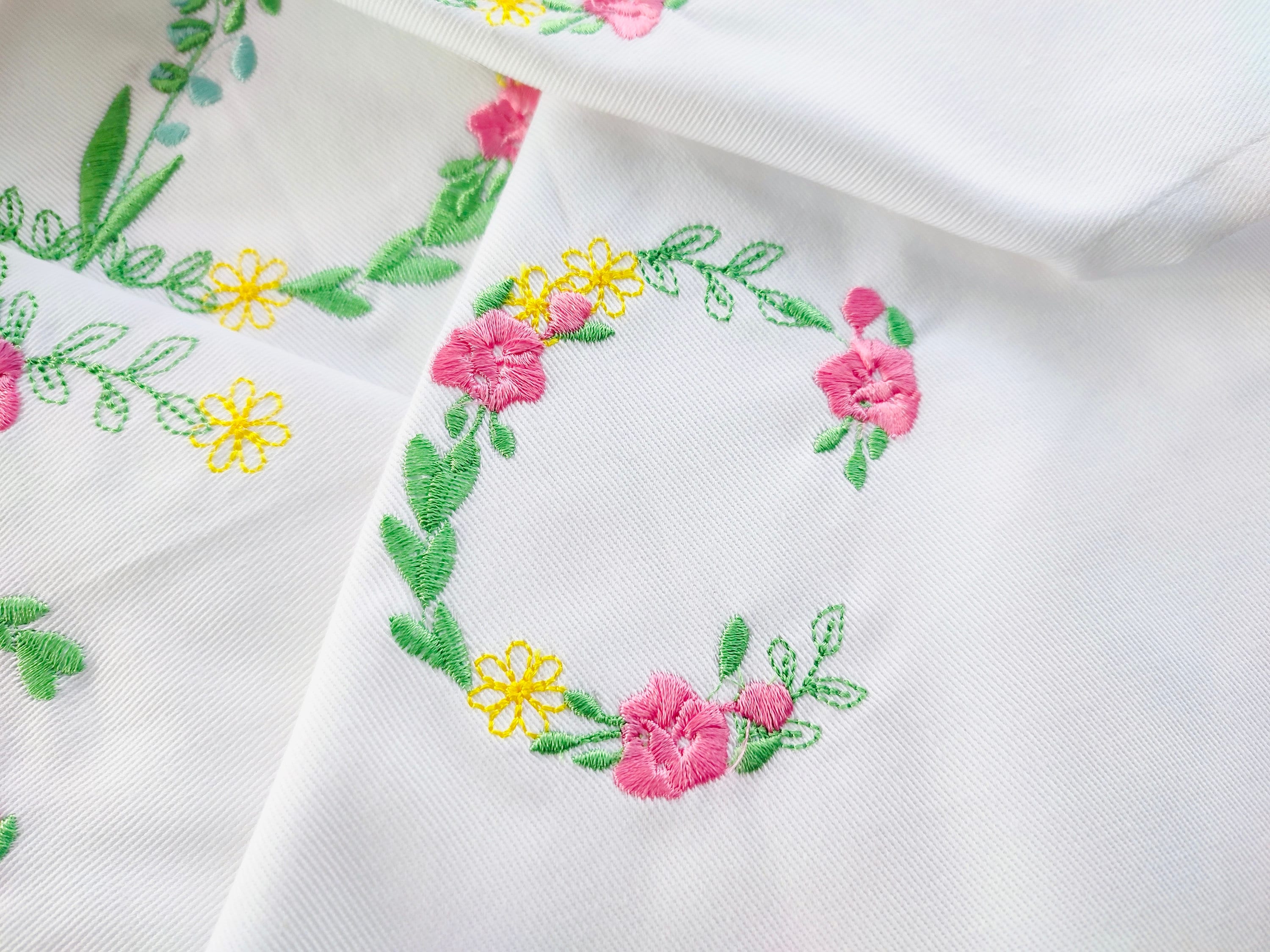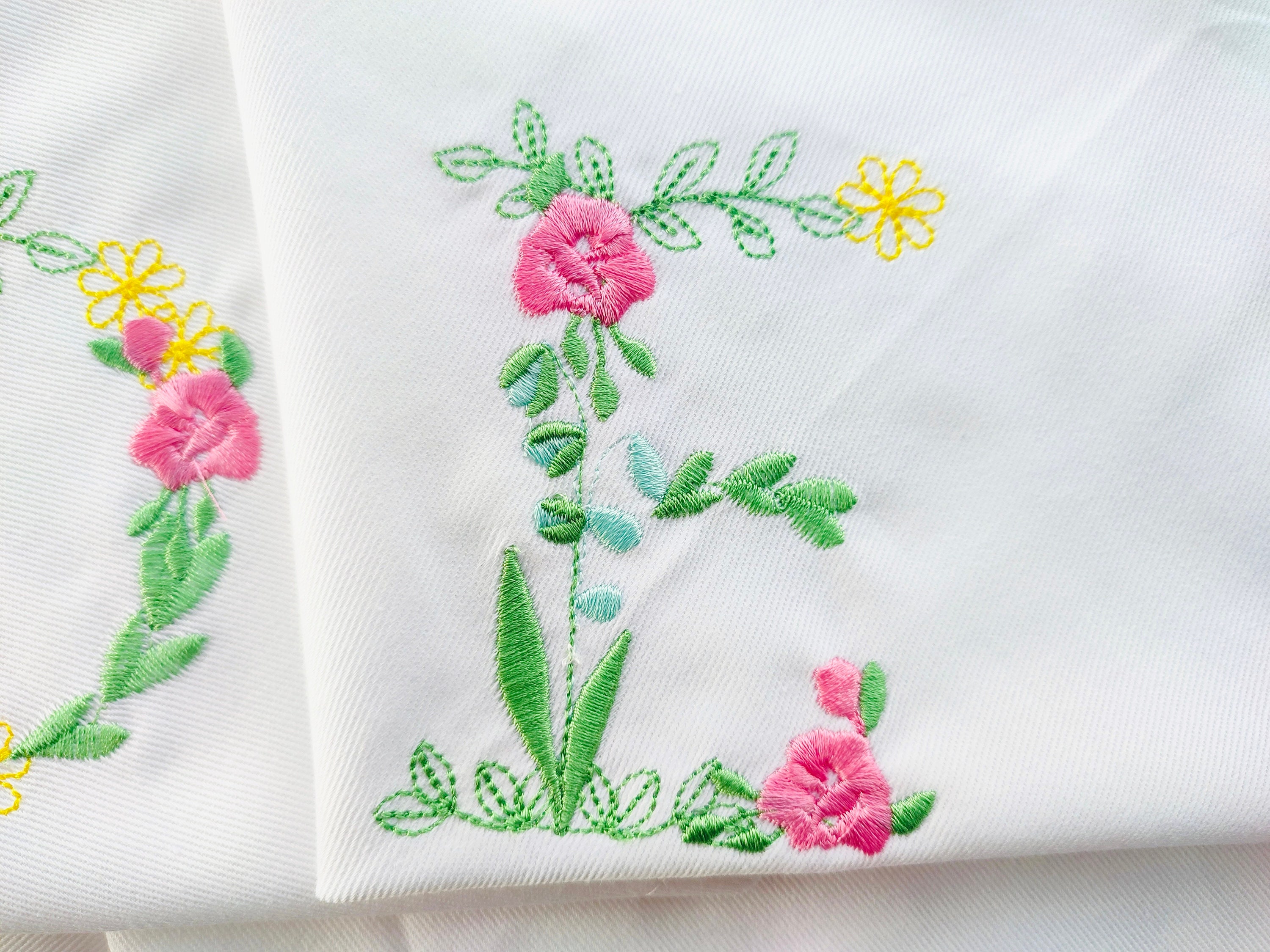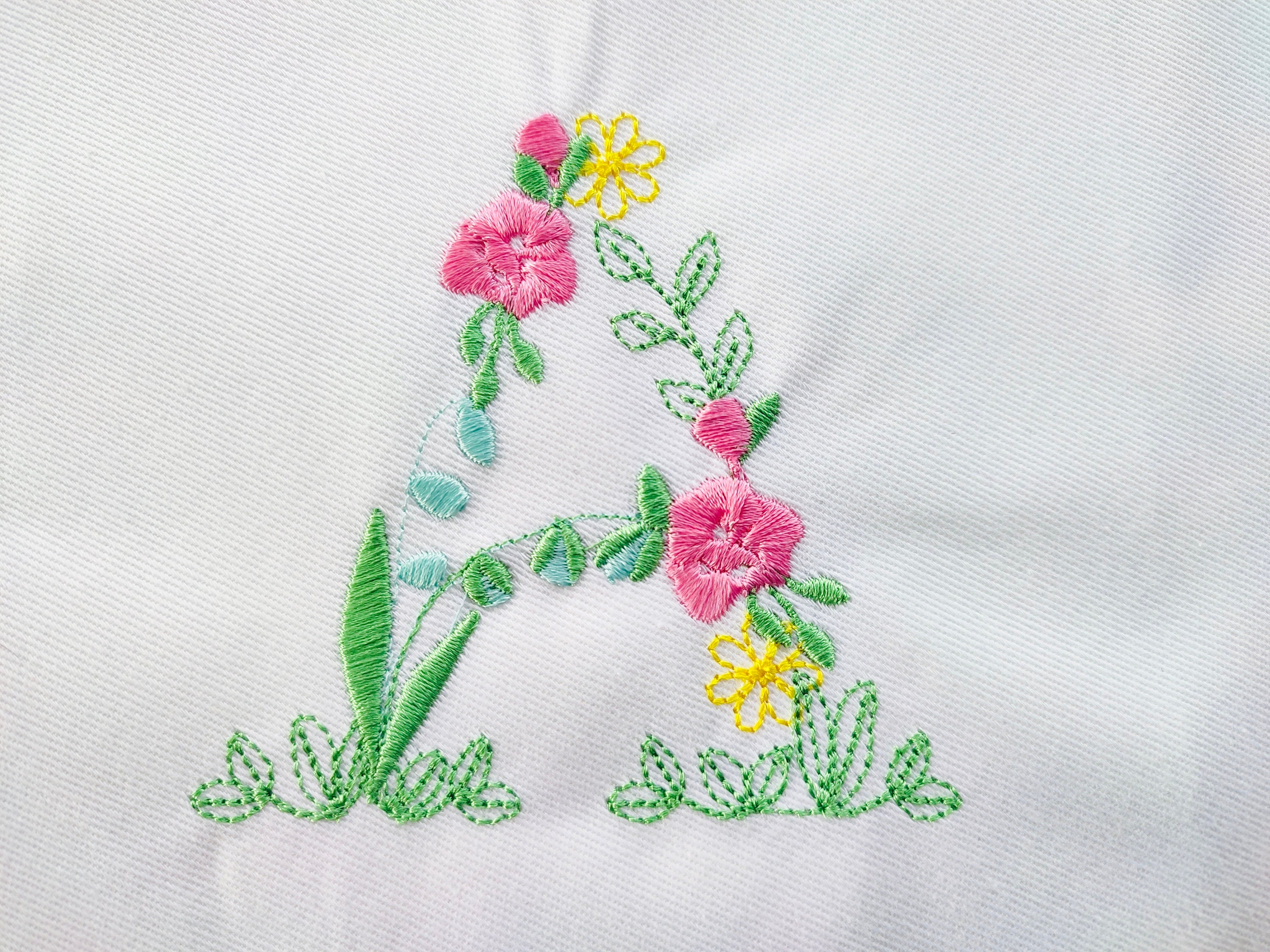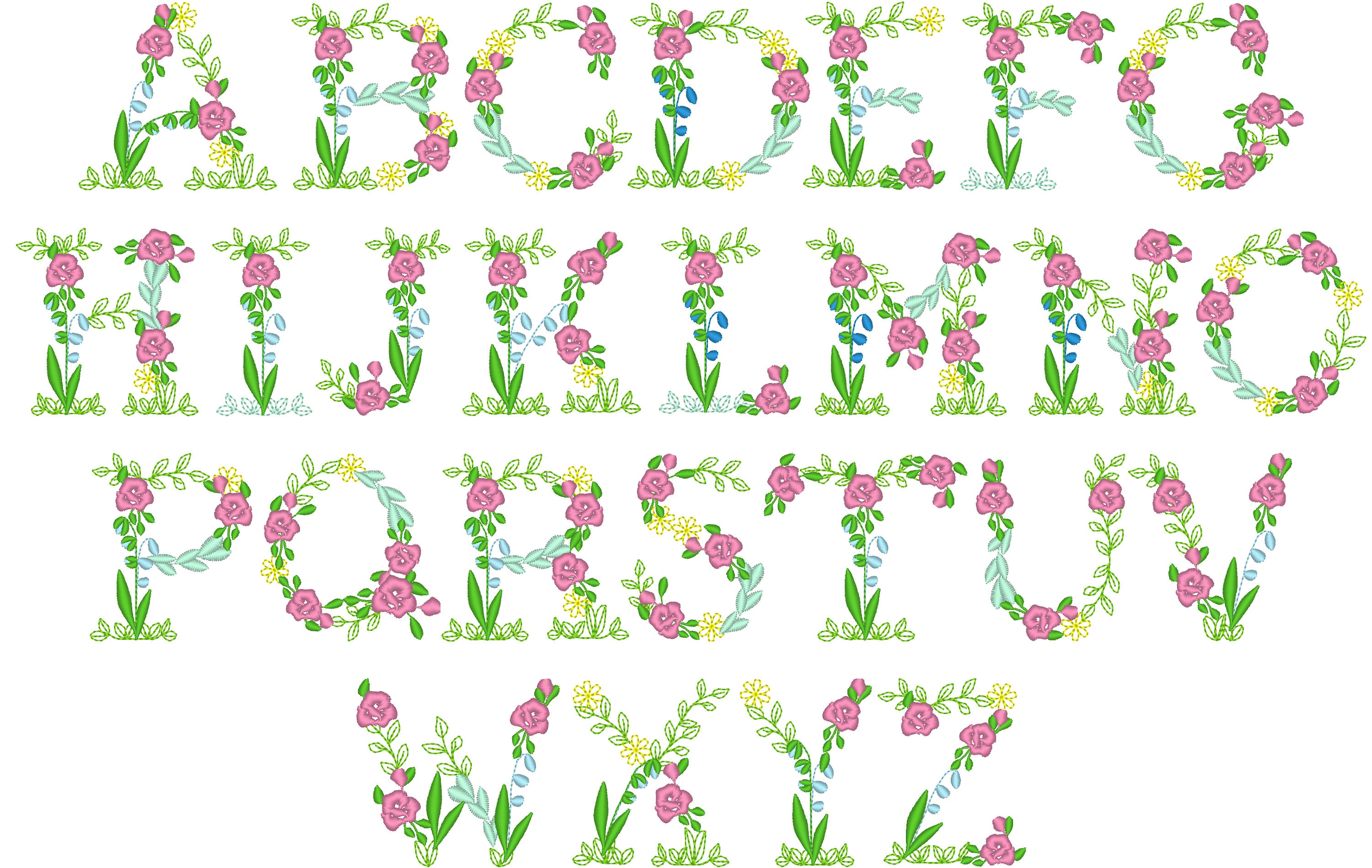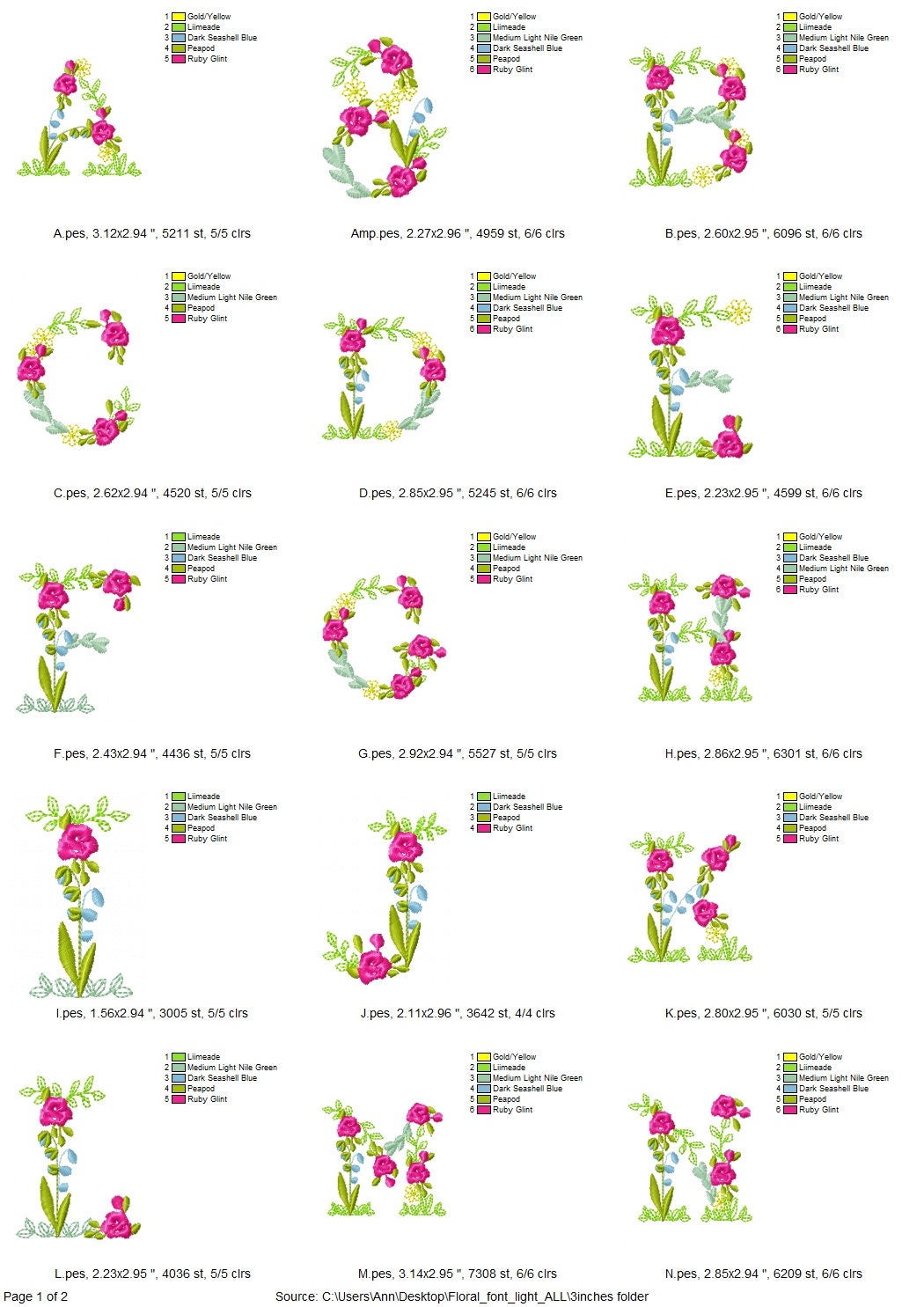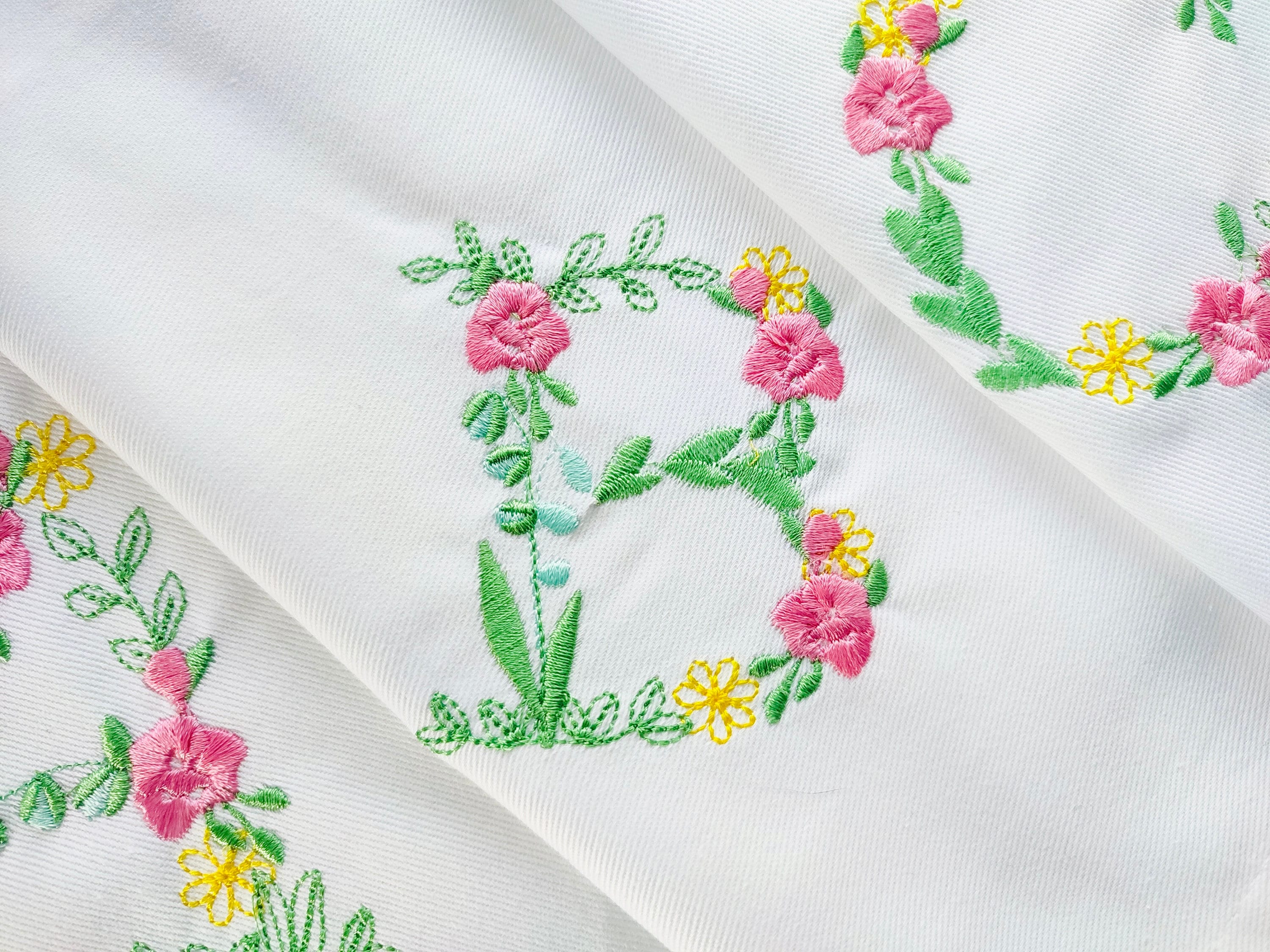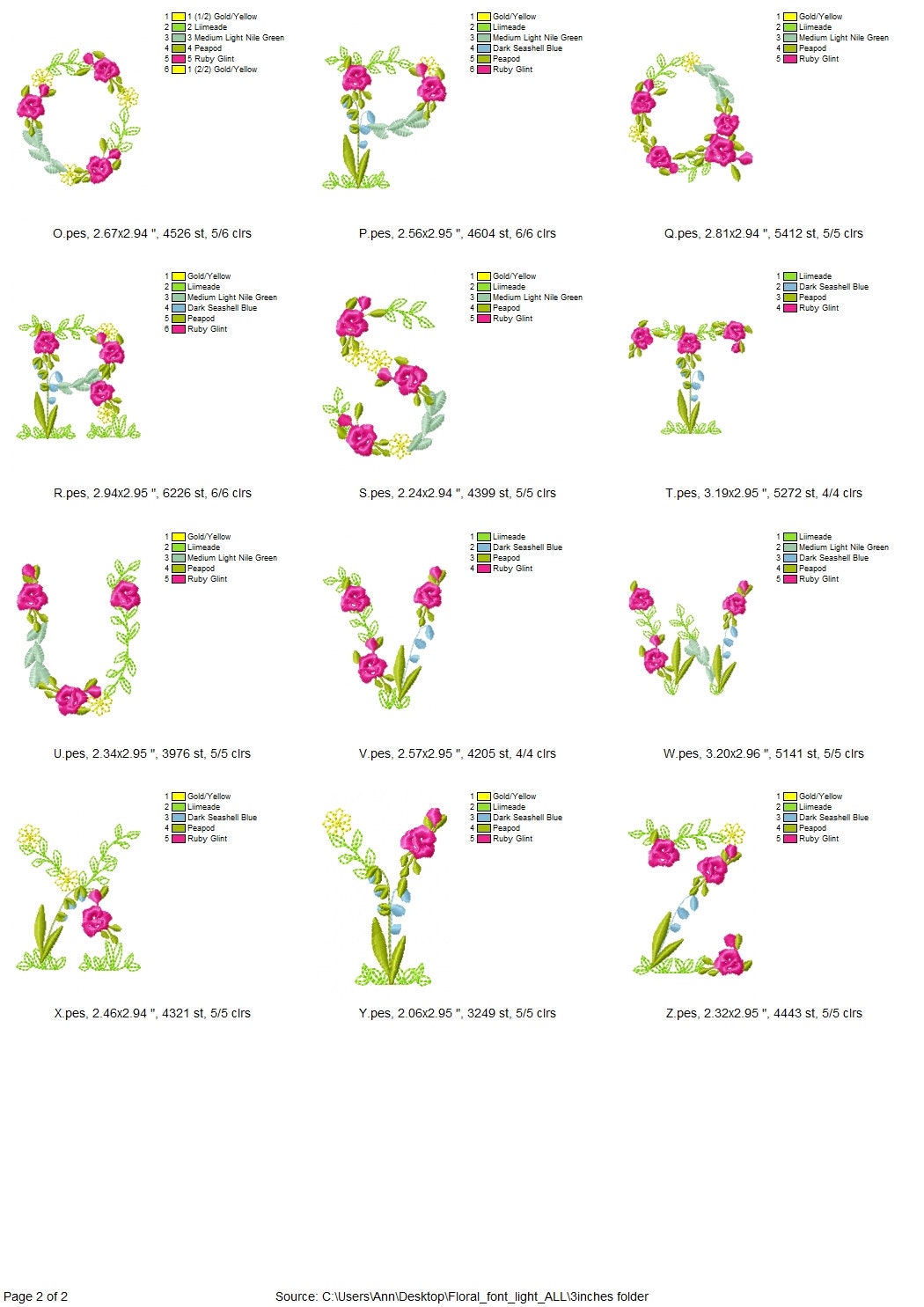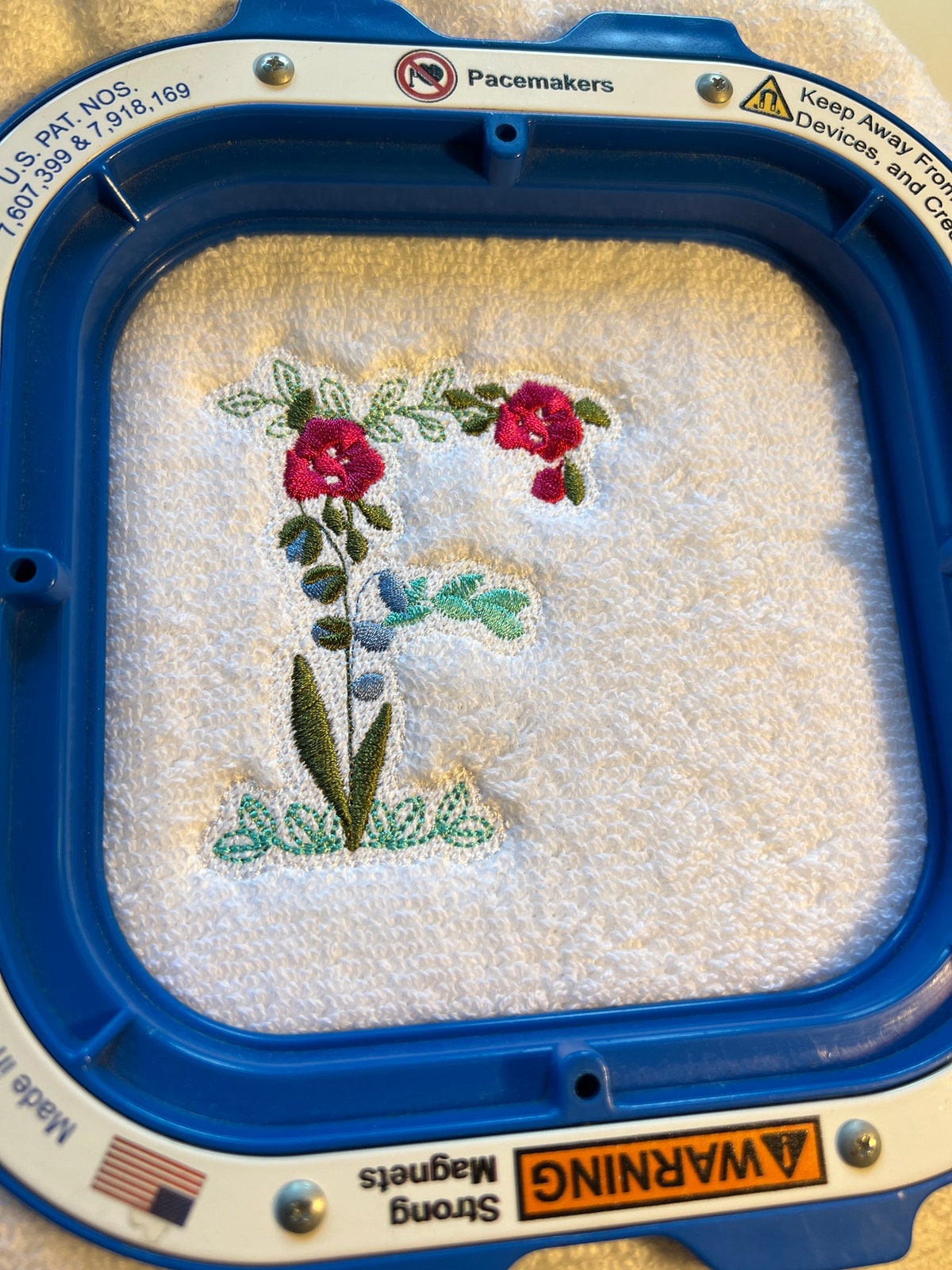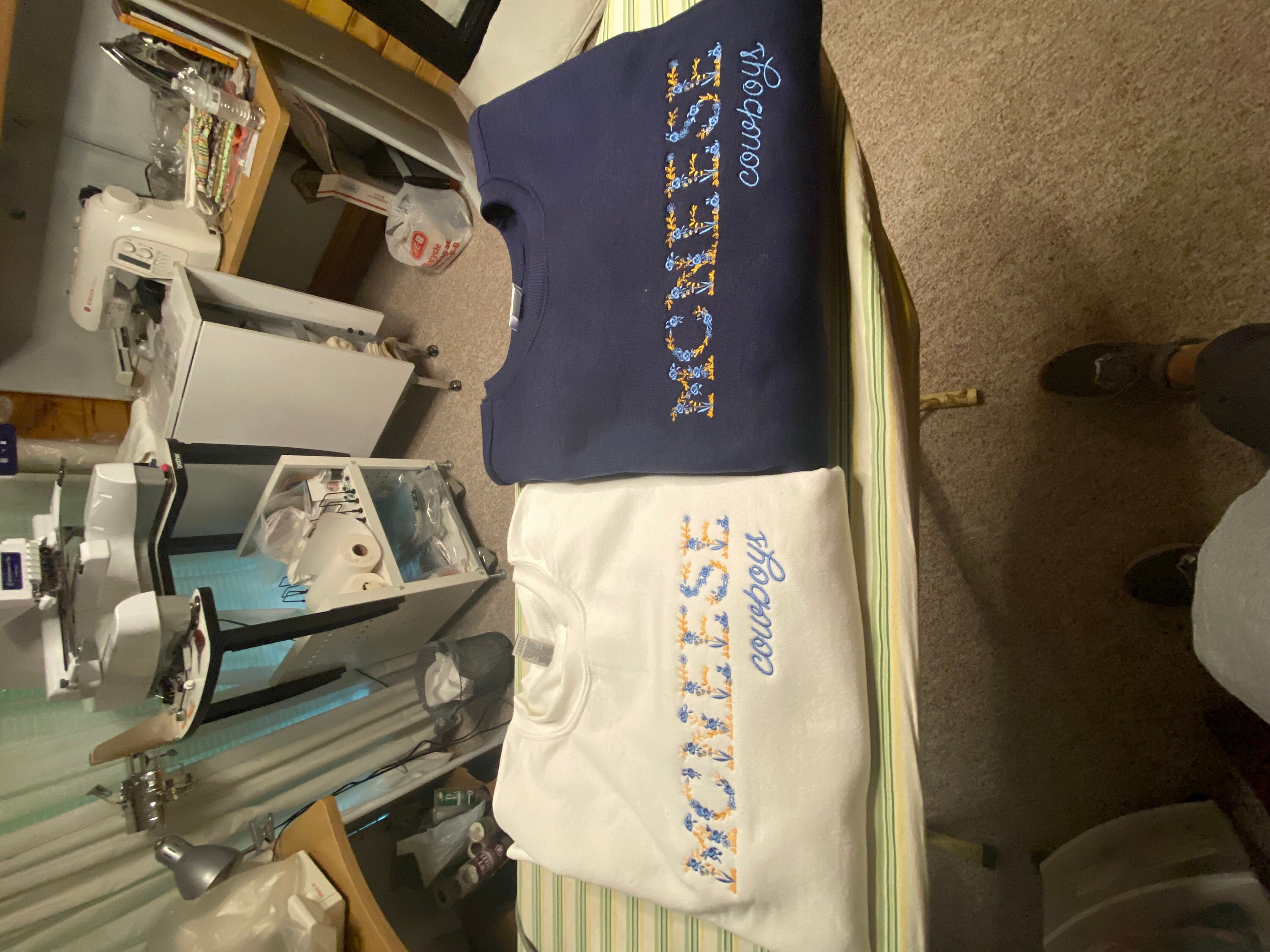
Light stitch Floral Font alphabet machine embroidery designs flowered font Summer Daisy Rose Flower monogram sizes 2 up to 3.5 inches, BX included
Entire alphabet capital letters A-Z.